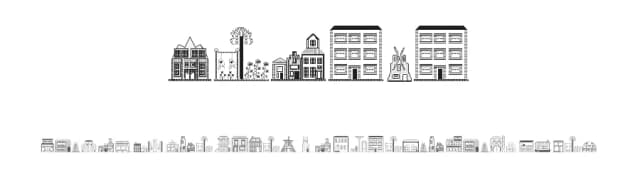
About Houses Two Font
Houses Two is a dingbat font designed by Scratch. It includes 67 glyphs, a regular weight, TTF (TrueType) format, and 89 languages. Houses Two is free to download; check the license details on this page before commercial use. Dingbat fonts like Houses Two work best for icons, ornaments, bullet points, and decorative accents.
Houses Two Font is a versatile dingbats font that works for both headings and body text. Pair it with a contrasting sans-serif or serif font to add visual interest and a clear distinction between titles and body copy.
Houses Two Font
by Scratch
Houses Two Font is a dingbats typeface by Scratch, ideal for logos, invitations, branding, and creative projects.